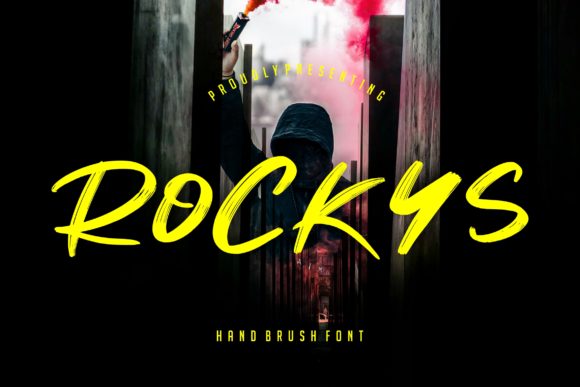
Welcome to the world of Rockys Font, an extraordinary display font born from the strokes of a brush pen. This masterpiece from the skilled team at CreatypeStudio is not just a font; it's an experience. Rockys Font is a voyage through creativity, a journey into the realm of captivating typography.
At its core, Rockys is a bold and confident font, exuding strength and character. Its carefully crafted lines flow seamlessly, creating a visual harmony that draws eyes and captures hearts. Each letterform is a work of art, a testament to the font's meticulous design. Whether you're a seasoned designer or just starting your creative adventure, Rockys Font is your perfect companion, ready to elevate your projects to new heights.
Unleash your imagination and let the power of Rockys Font transform your words into captivating creations. Its versatility knows no bounds, making it the ideal choice for a wide range of projects, from striking logos and branding to eye-catching posters and social media graphics. With Rockys Font, you have the freedom to express yourself fully, to make a statement, and to leave an unforgettable impression.
With Rockys Font, you'll discover a world of possibilities. Its carefully crafted characters dance on the page, inviting you to explore new avenues of creativity. Turn your designs into captivating stories, where each letter tells a tale and every word carries weight. Whether you're a seasoned typographer or just starting to explore the art of lettering, Rockys Font is your guiding star, illuminating your path to greatness.
As you embark on this creative journey with Rockys Font, you'll discover a treasure trove of inspiration. Its bold strokes and playful curves ignite your imagination, propelling your creativity to new heights. Let your designs take center stage, captivating audiences and leaving them in awe. With Rockys Font as your muse, the ordinary becomes extraordinary, the mundane transforms into the magnificent.
Don't let this opportunity pass you by. Embrace the allure of Rockys Font and watch as your creative endeavors soar to unprecedented heights. Dive into a world of boundless creativity, where your ideas take flight and your designs become masterpieces. With Rockys Font, the possibilities are endless.